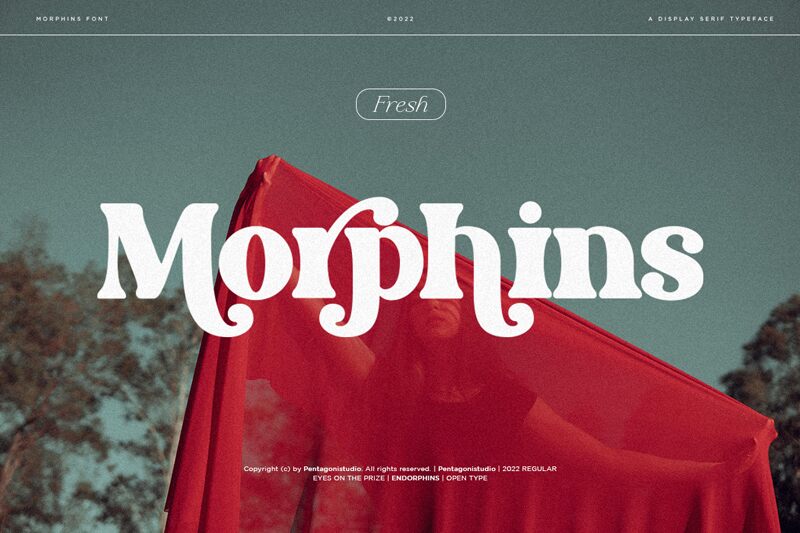
Morphins, a creation of Pentagonistudio, stands out with its bold serifs that command attention. Its sturdy appearance coupled with graceful curves offers a contemporary twist on classic typography. The robust structure of Morphins exudes confidence, making it an ideal choice for headlines and titles that need to make a strong impression.
The font's assertive presence is softened by subtle details that add character without overwhelming the senses. With such a distinctive yet versatile style, Morphins is well-suited for branding projects, editorial designs, and any context where typographic charisma is key. This font not only speaks but resonates with its audience through commanding letterforms that merge tradition with modern flair.